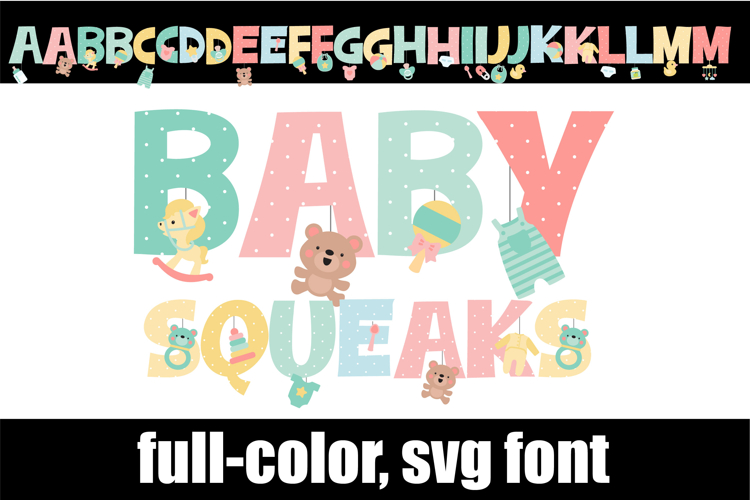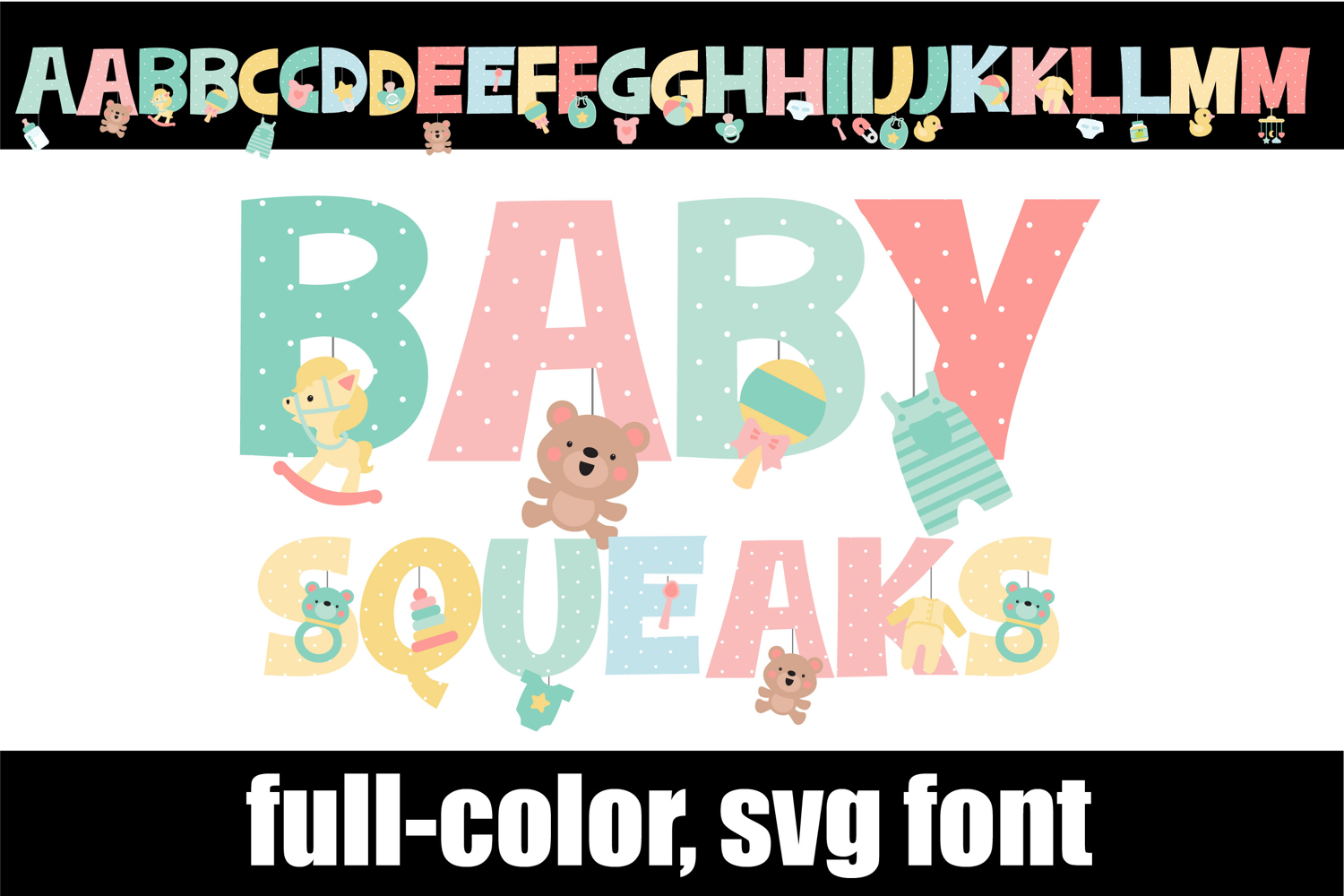
Baby Squeaks Color Font
This full-color, pastel-colored font features baby toys and polkadots. There is an alt case of each letter with a different color combination.